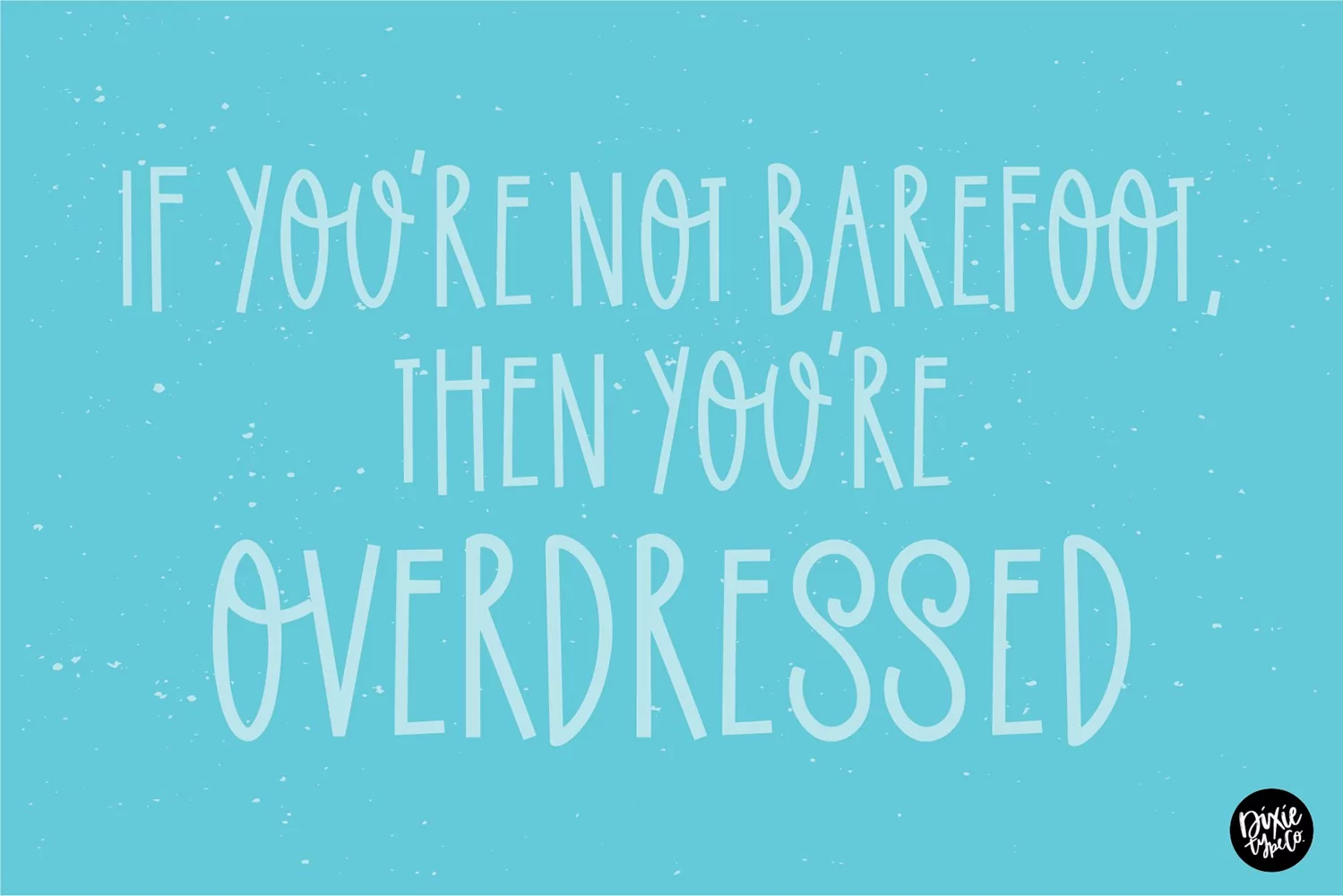
SUMMER SOLSTICE a Cute Sans Serif Font
"Summer Solstice" Hand-lettered skinny summer font. This is an all-caps font.
{ A typographic font hand-lettered with love by Dixie Type Co. }
Summer Solstice is a tall sans serif font that is perfect for summer. This works great in projects that use lots of text.